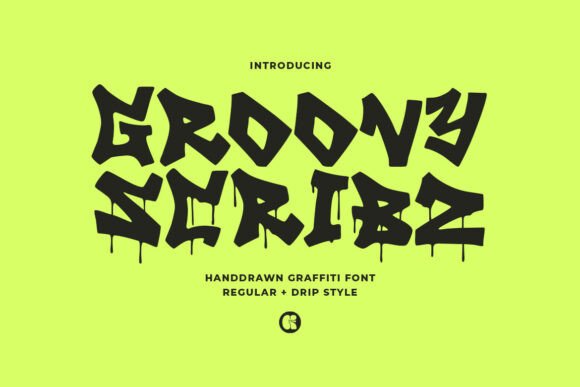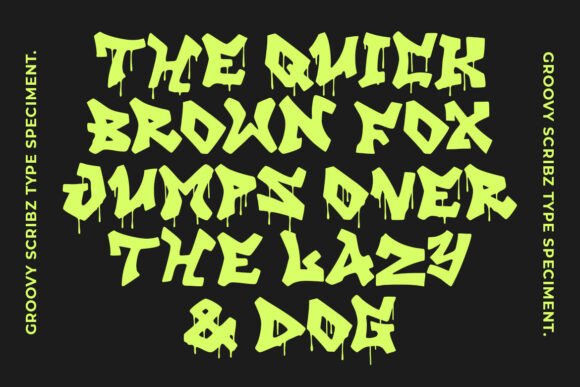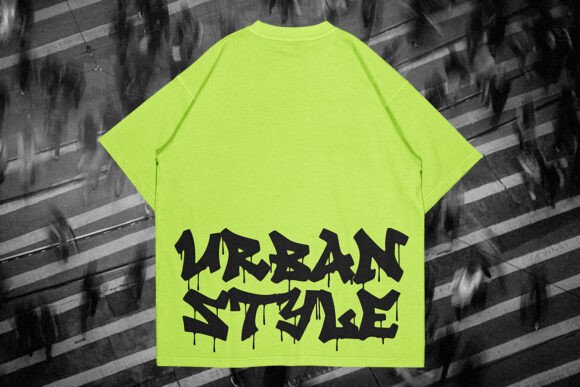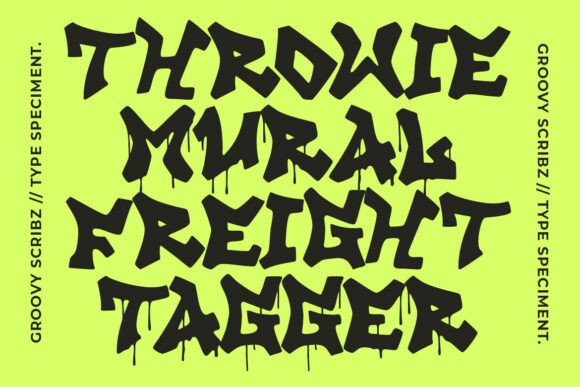
Groovy Scribz Font: Edgy Graffiti Display Font for Cricut & Creative DIY
About the Groovy Scribz Font
Introducing the Groovy Scribz Font, a beautifully crafted typeface designed to elevate your creative projects. Groovy Scribz is a vibrant and expressive handdrawn graffiti font that captures the essence of street art. Inspired by the bold and dynamic writings found on city walls, this font exudes an urban and edgy vibe.
With two versions available – regular and drip style – Groovy Scribz offers versatility and creativity for any design project. Let your text come alive with this captivating and unique font that adds a touch of rebellious energy to your work.
Groovy Scribz excels in headline applications, short impactful phrases, posters, and branding for streetwear apparel or music projects. Its energetic nature makes it ideal for capturing attention, but the hand-drawn style limits readability in body text or UI elements. Avoid using it for large blocks of text or situations requiring high legibility.
The bold, rebellious personality of Groovy Scribz is best balanced by pairing it with clean sans-serif fonts like Futura or a more geometric sans-serif for a striking contrast. For a slightly softer approach, a neutral serif such as Garamond or a simpler script font could complement its expressive strokes.
Consider pairing the drip style with a minimalist sans-serif for a more modern feel, or the regular style with a classic serif for a vintage-inspired effect. These pairings provide visual balance and prevent the design from feeling overwhelming.
Groovy Scribz Font Usage Examples
Groovy Scribz Font Example